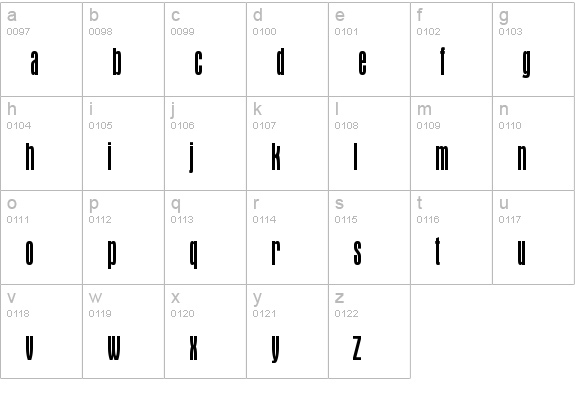
Aurora Condensed is a distinctive, condensed-width variant in the Aurora typeface family \xE2\x80\x94 well suited to design and typography projects.
Aurora Condensed font is a sleek and modern typeface that exudes sophistication and elegance. With its condensed letterforms and clean lines, this font is perfect for creating a polished and professional look in your designs. Whether you're working on a branding project, editorial design, or any other creative endeavor, Aurora Condensed font will bring a touch of class to your work. What's even better is that Aurora Condensed font is available for free download at FontsMarket.com. This means you can easily access this high-quality font and use it in your projects without any cost. So why wait? Enhance your designs with the timeless beauty of Aurora Condensed font today!